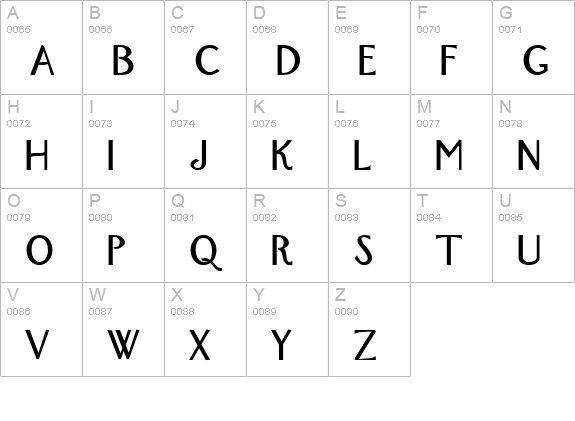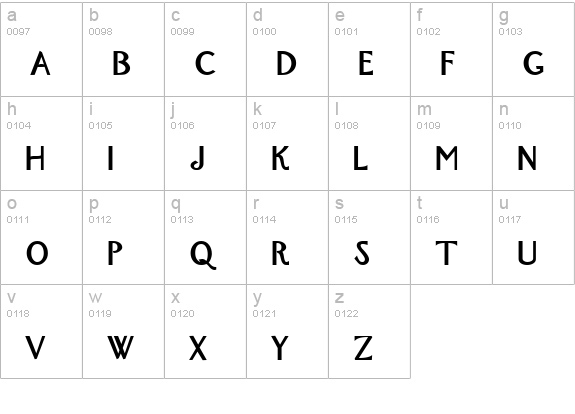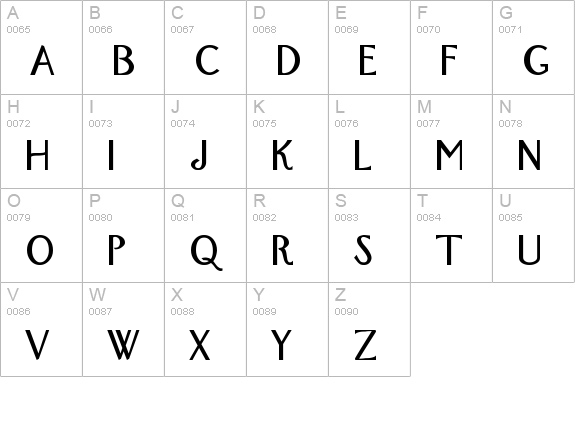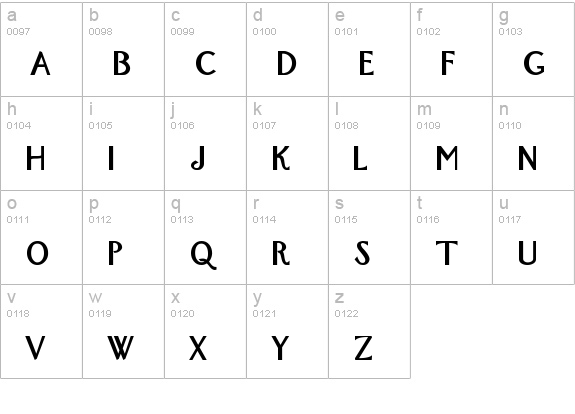
New York Bold Font Details
New York Bold is a strong, high-contrast variant in the New typeface family \xE2\x80\x94 well suited to headlines, attention-grabbing titles, and strong calls-to-action.
Introducing New York Bold font, a sleek and modern typeface designed to make a bold statement in any design project. With its strong and confident appearance, New York Bold exudes a sense of sophistication and professionalism. This versatile font is perfect for headlines, logos, posters, and more, adding a touch of elegance to your designs. What's even better is that New York Bold font is available for free download at FontsMarket.com. So you can easily elevate your projects with this premium font without breaking the bank. Don't miss out on the opportunity to enhance your design work with the timeless appeal of New York Bold font. Download it today and start creating impactful designs that stand out from the crowd.